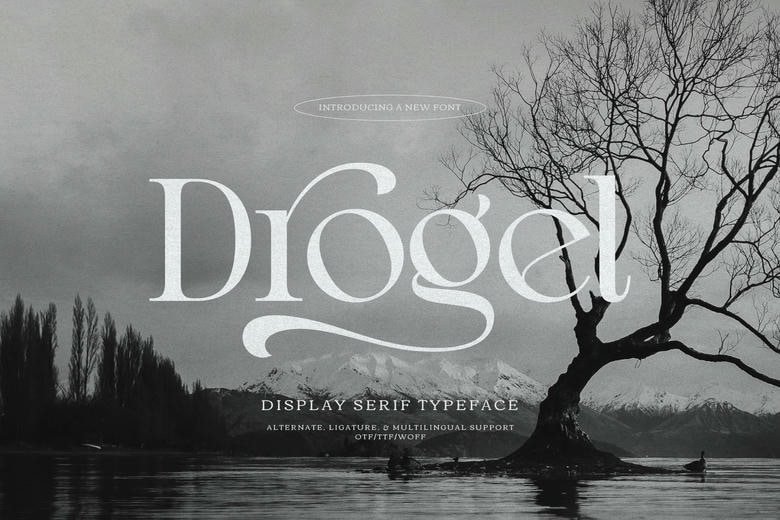
Drogel Font
Drogel is a majestic and sophisticated display serif typeface that commands attention with its dramatic contrast and beautifully exaggerated swashes and curves.
This elegant font exudes an air of vintage luxury and high fashion, making it ideal for aspirational and premium branding projects. The Drogel typeface includes alternates, ligatures, and extensive multilingual support, offering designers maximum flexibility and refined typographic options.
Use the Drogel serif font for high-end cosmetic packaging, fashion photography titles, luxury event invitations, and magazine covers that demand an opulent, grand, and uniquely artistic statement. The swooping, delicate terminals of the Drogel font guarantee a timeless, high-class aesthetic.
Drogel Serif Font